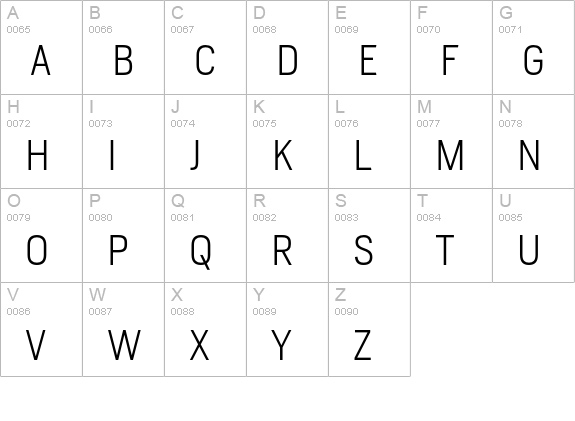
HeronSans Light Font Details
HeronSans Light is a refined, elegant variant in the HeronSans typeface family \xE2\x80\x94 well suited to elegant body text, refined sub-headings, and luxury branding.
HeronSans Light is a sleek and modern sans-serif font that exudes elegance and sophistication. With its clean lines and minimalist design, this font is perfect for a wide range of design projects, from branding to editorial design. The light weight of HeronSans adds a touch of airiness and delicacy to any text, making it suitable for conveying a sense of simplicity and refinement. What makes HeronSans Light even more appealing is that it is available for free download at FontsMarket.com. This means that you can easily access this high-quality font without any cost, making it a valuable addition to your font collection. Whether you are a designer looking for a versatile typeface or a business owner wanting to elevate your brand's visual identity, HeronSans Light is a fantastic choice that won't break the bank. Download it today and see how it can enhance your design projects with its effortless style and sophistication.